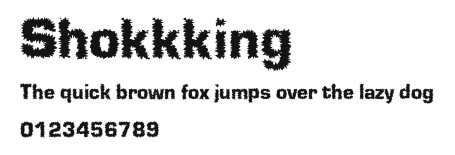
• Font Name: Shokkking
• Full Font Name: Shokkking Black
• PostScript Name: Shokkking-Black
• Designer: Sven Heyckendorf
• Manufacturer: redbikini.com
About Shokkking.otf
Shokkking.otf is a modern, elegant sans-serif font designed for ultimate readability and visual harmony. Perfect for branding, headlines, web design, and print materials.